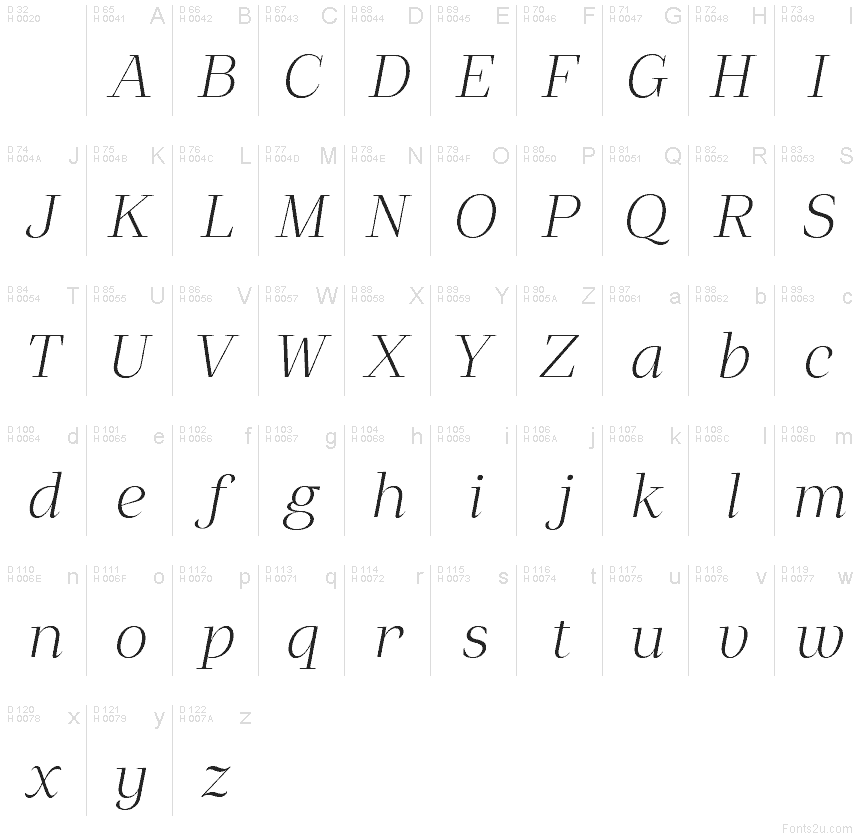
Klimaks Demo Bold Italic
Klimaks Bold Italic font by Kereatype Studio is an elegant and classic-inspired serif font with a light, sophisticated style. It combines timeless design elements with a modern twist, making it an exceptionally versatile font for various applications. Its graceful curves and refined lines convey a sense of elegance and charm.